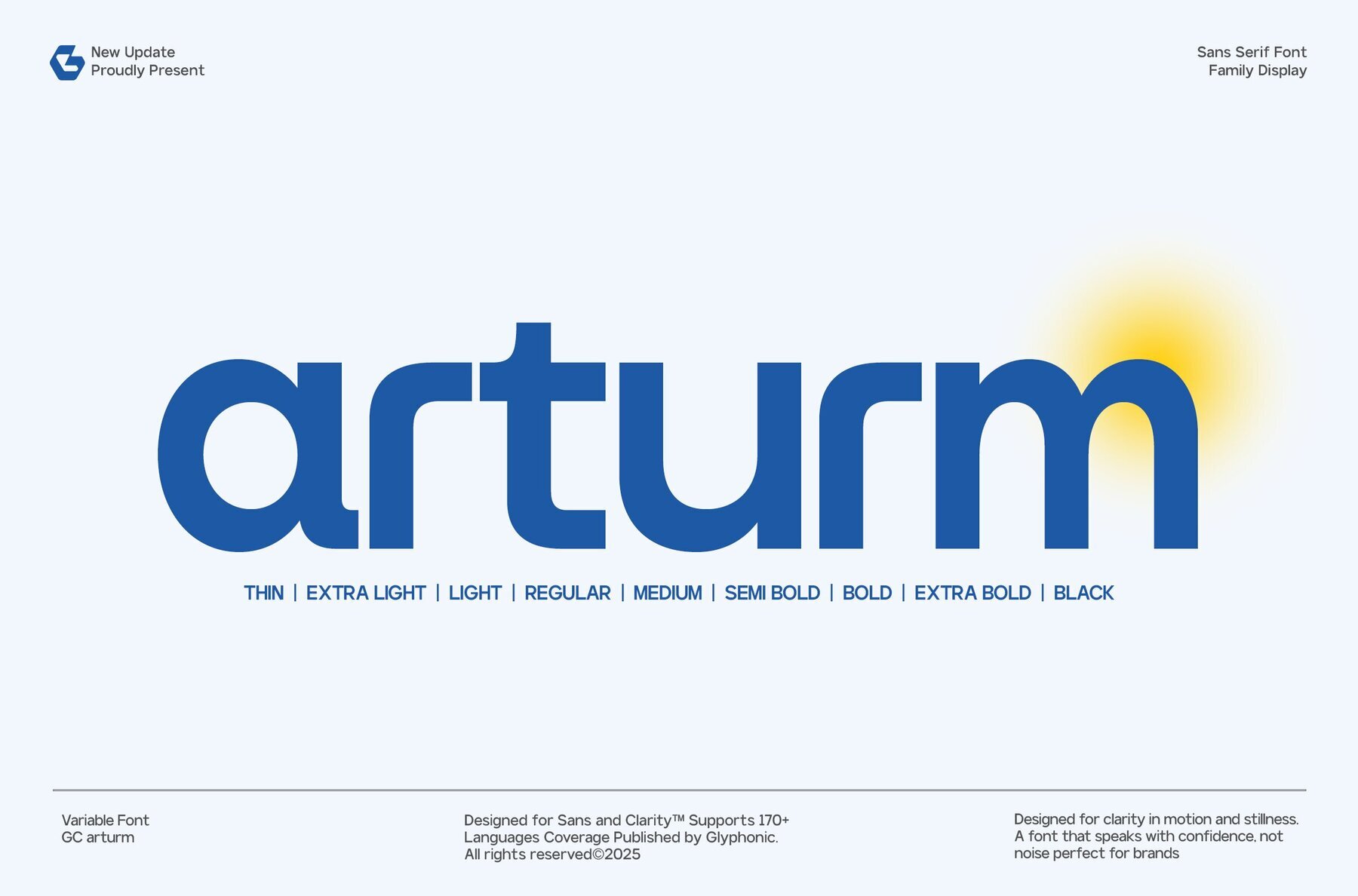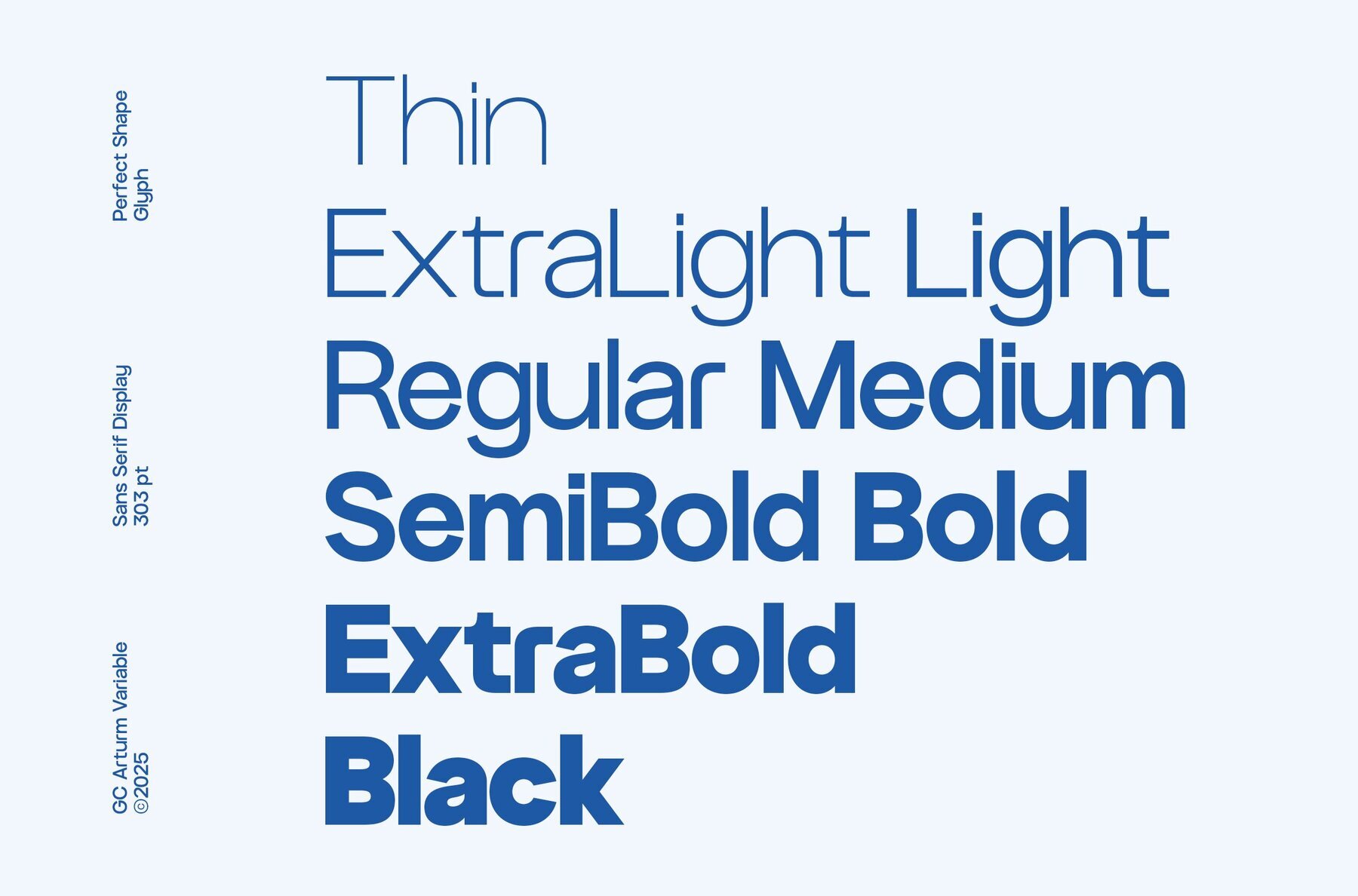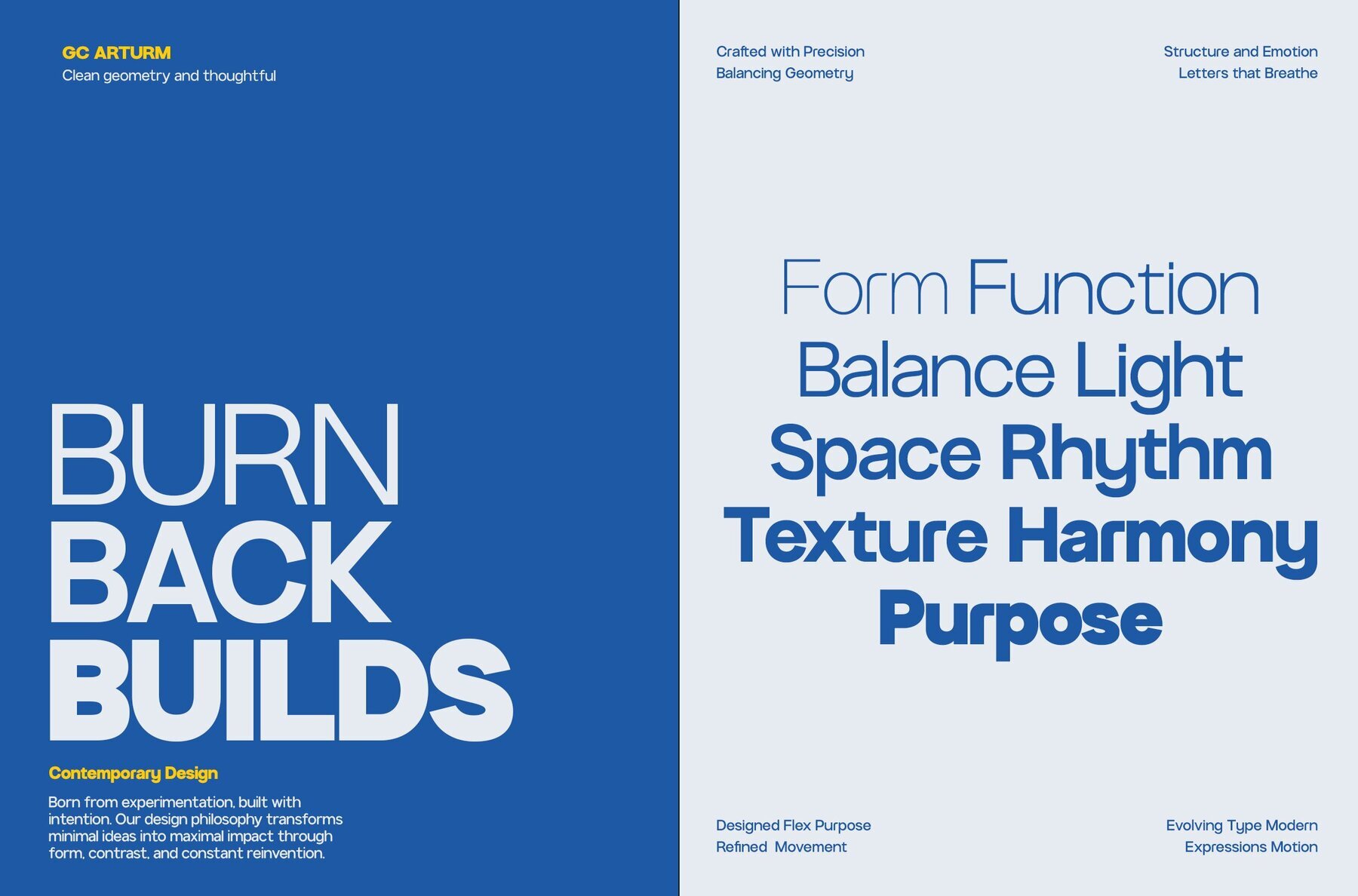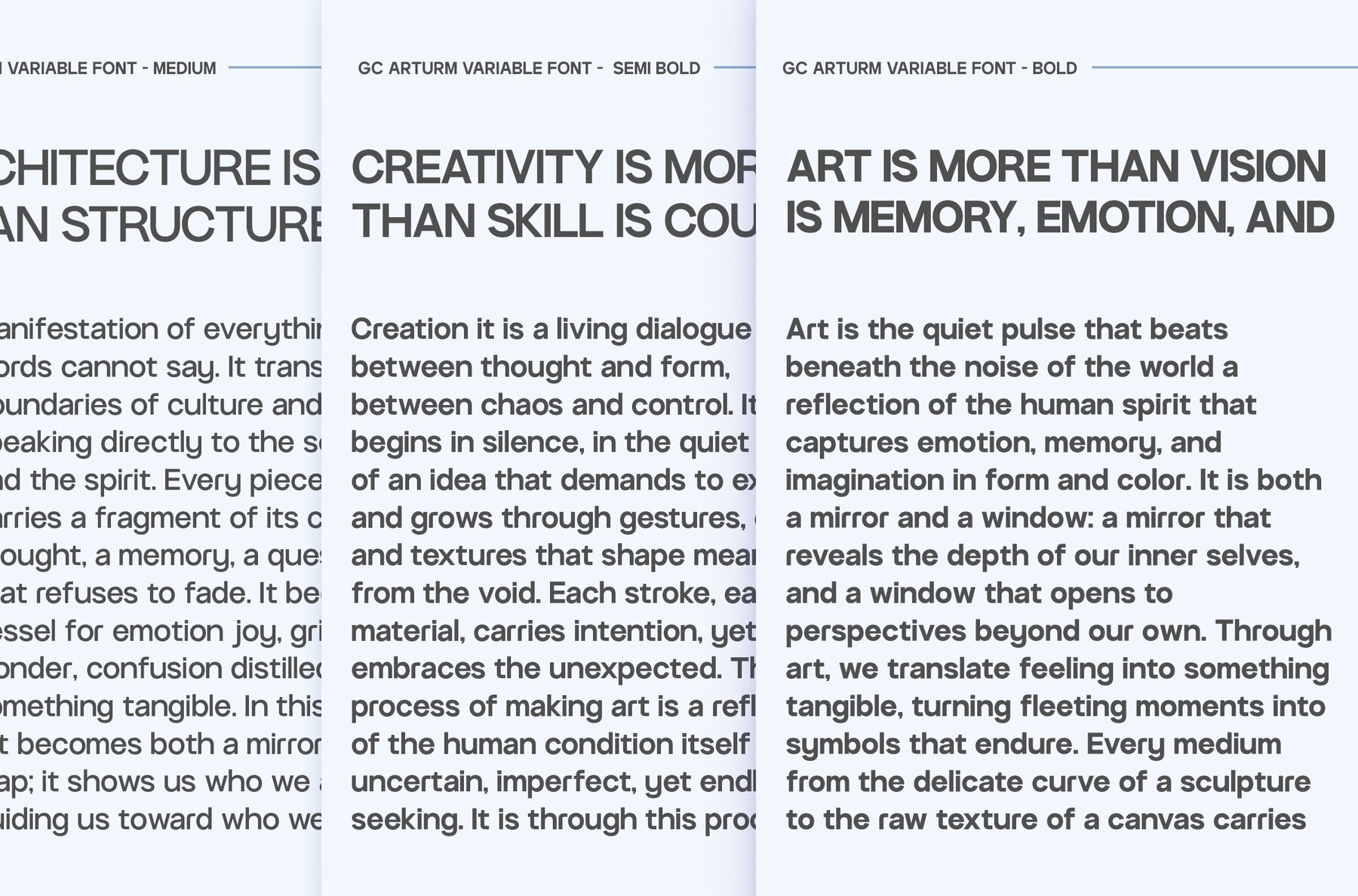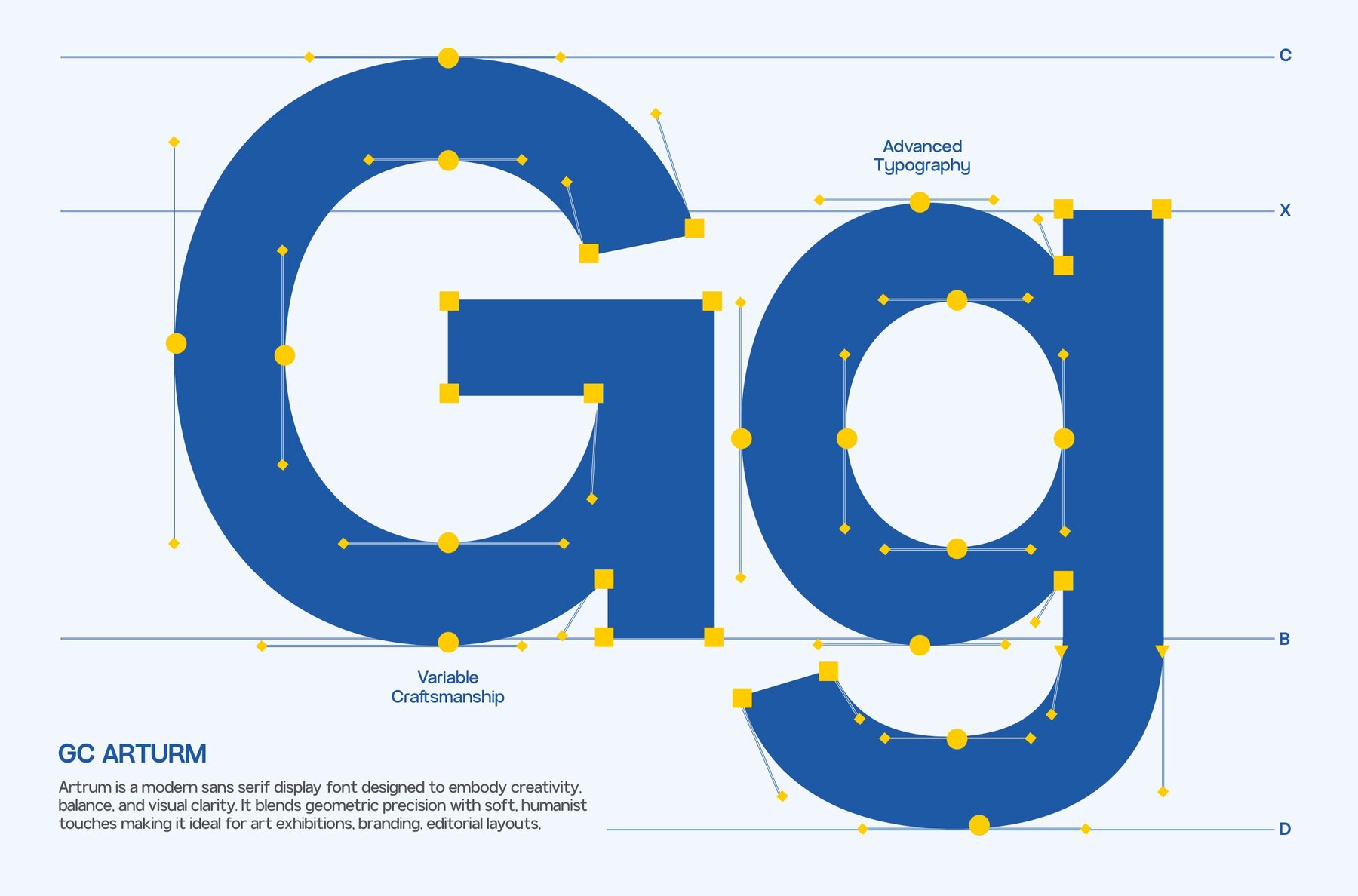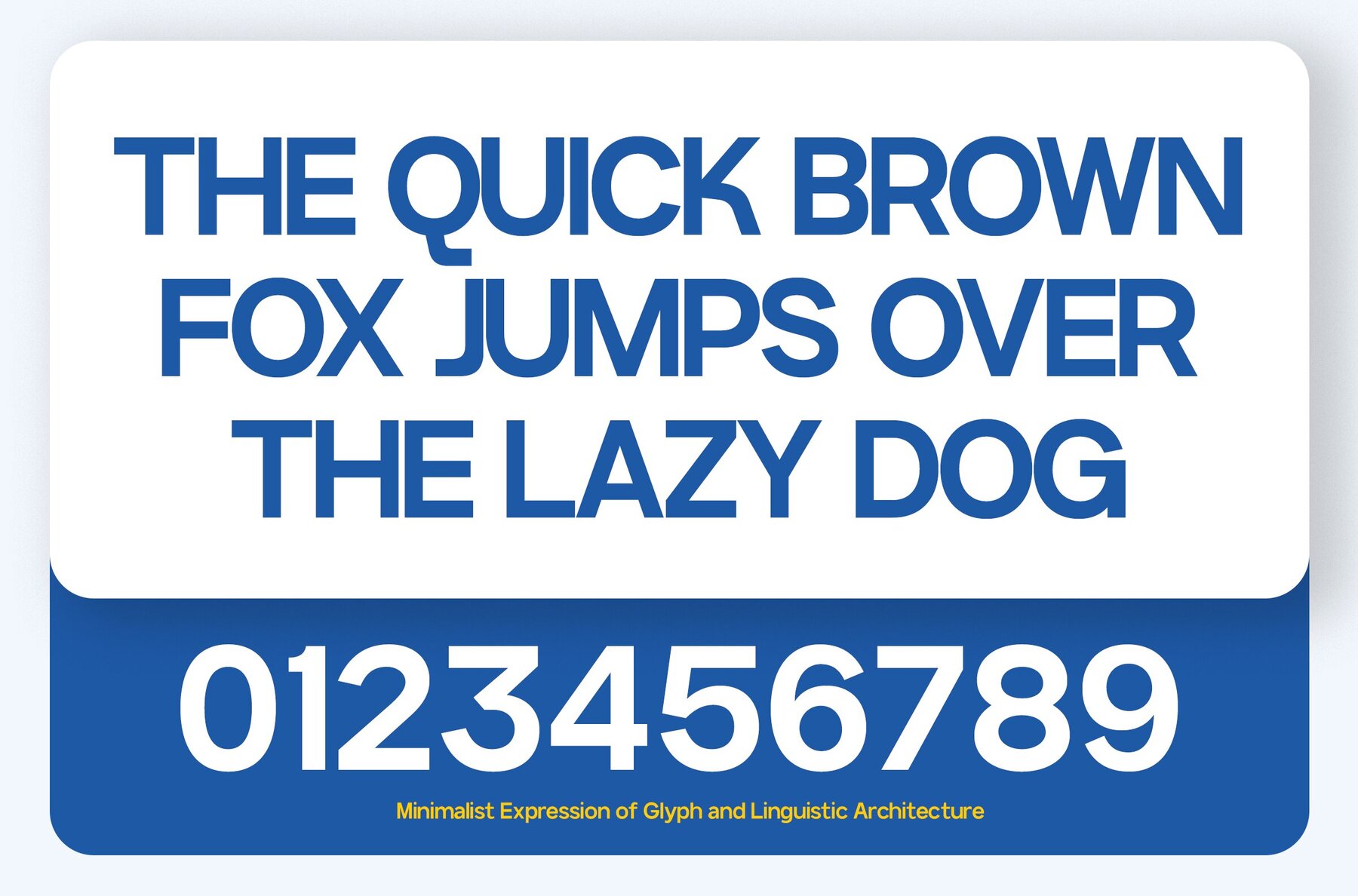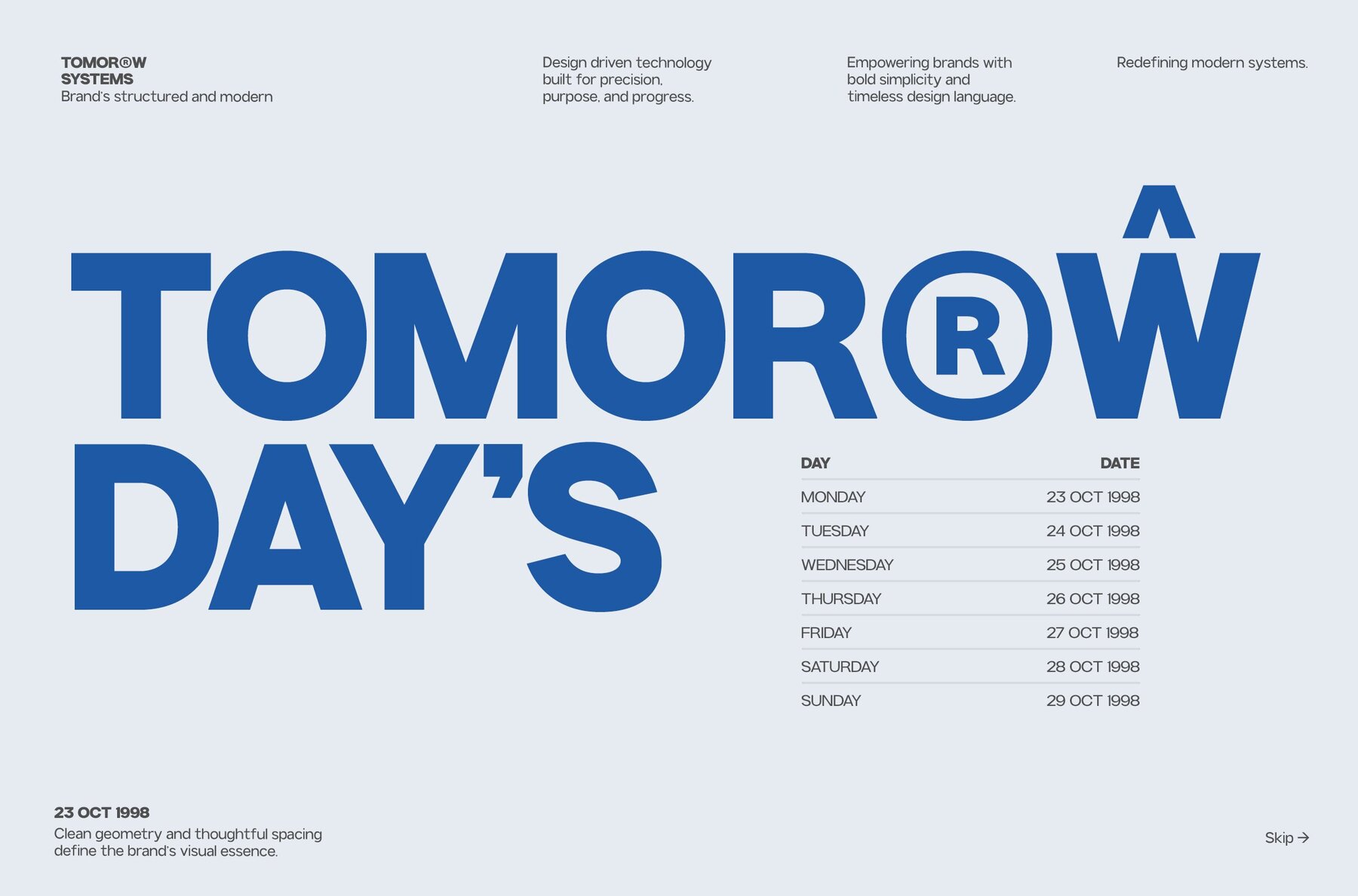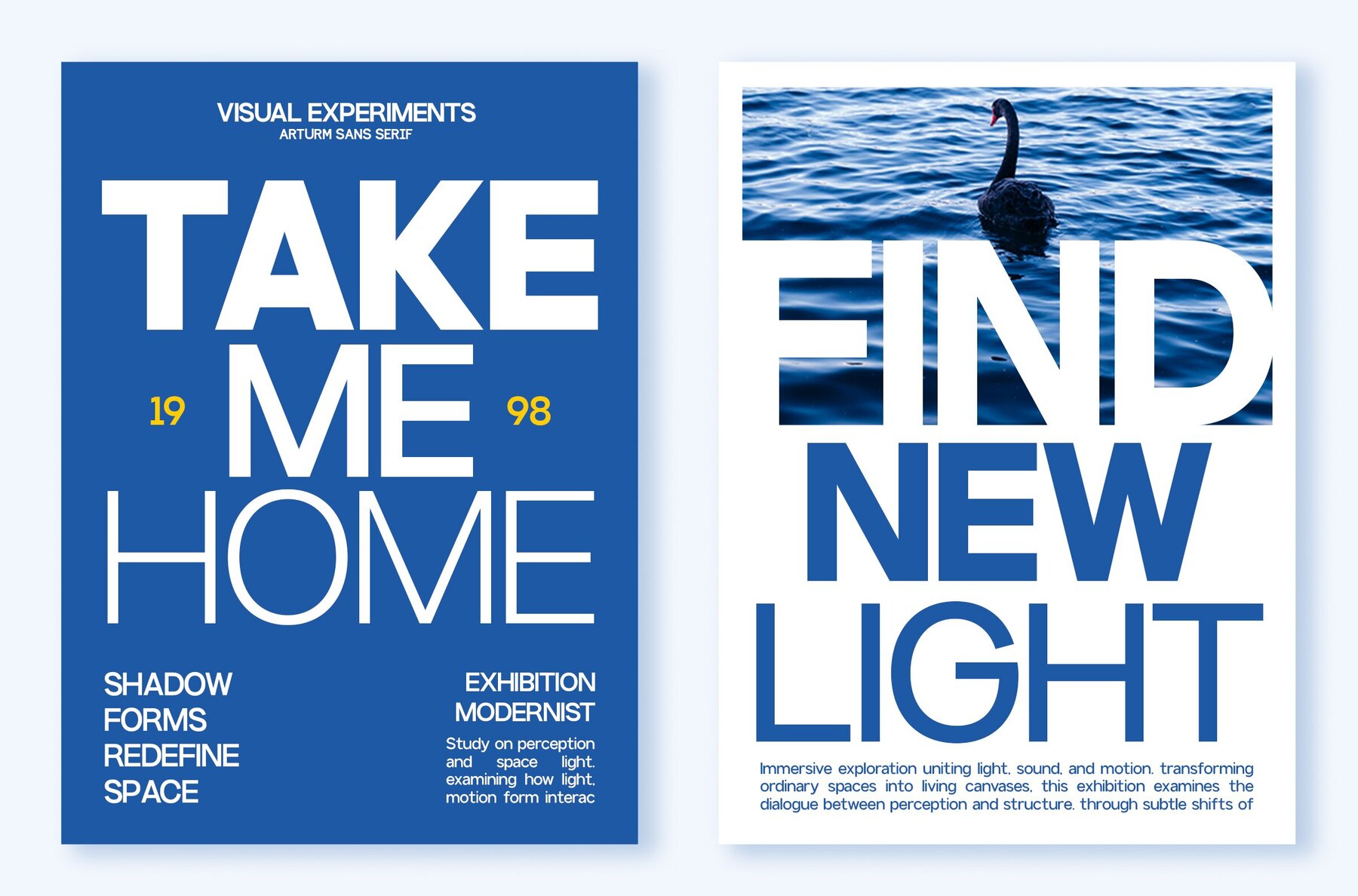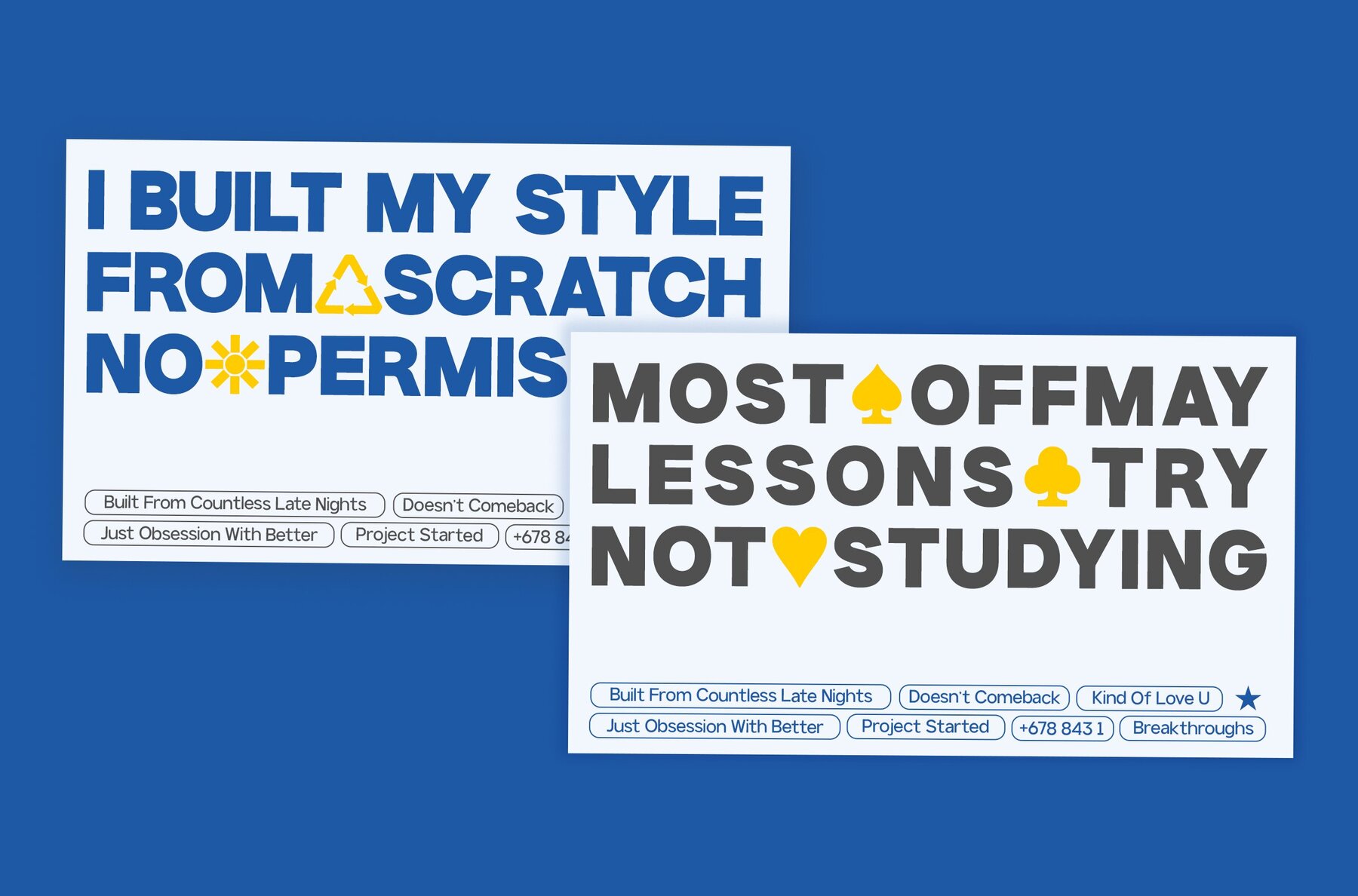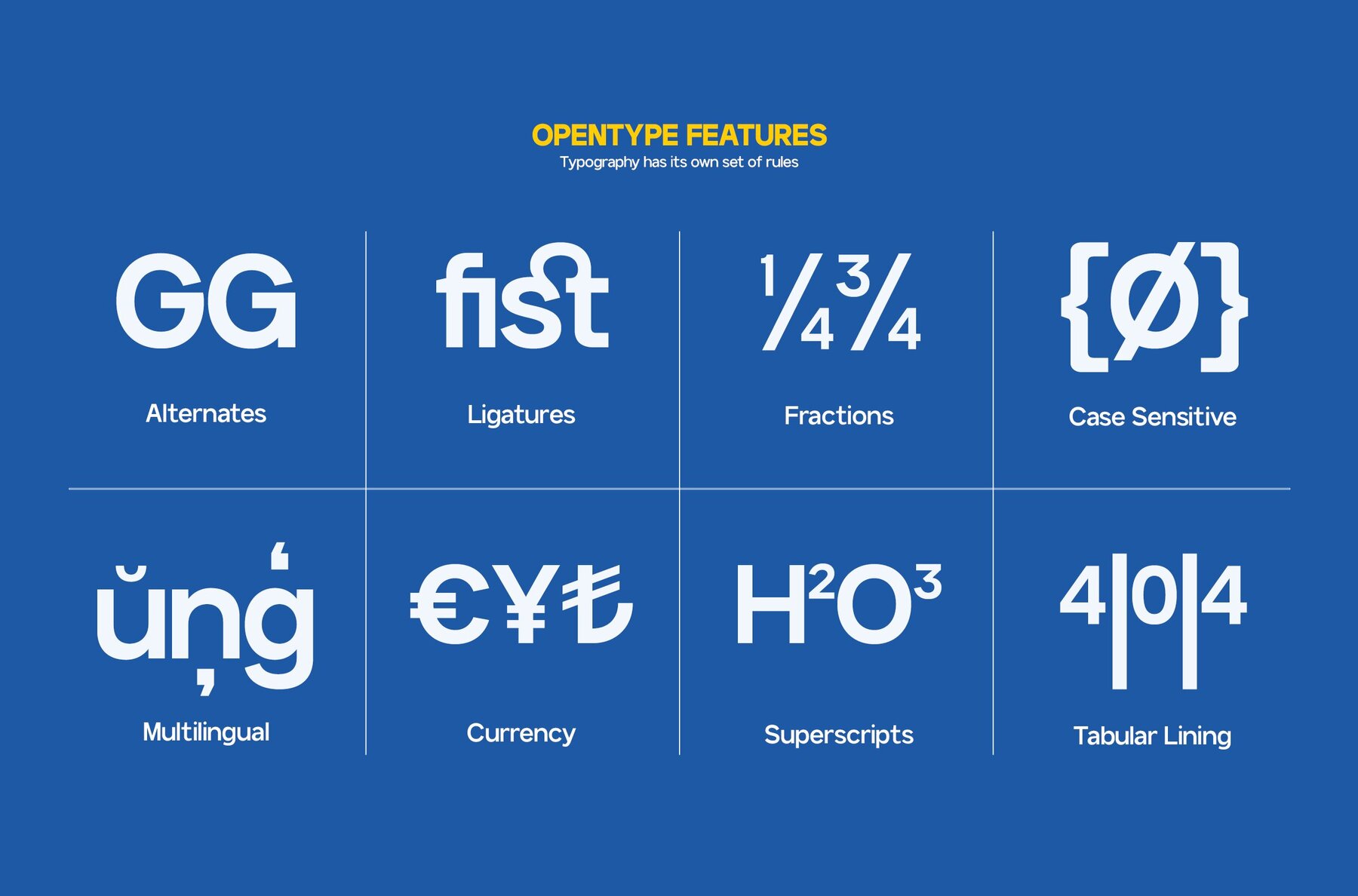
GC Arturm Font
GC Arturm stands out as a refined sans serif typeface, crafted with precision, balance, and clarity. As a variable font, it seamlessly transitions across a spectrum of weights ranging from Thin to Black, providing designers with unparalleled control over tone and expression. Its clean, geometric lines and minimalist elegance make it a perfect fit for any visual context. Each character of GC Arturm is engineered for optical harmony, guaranteeing legibility and visual consistency throughout its range. Its modern aesthetic is ideal for creating a confident, contemporary presence in any project.GC Arturm: Modern Variable Sans for Versatile Design